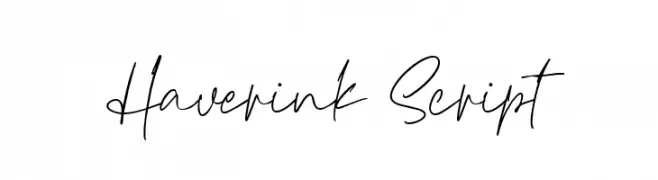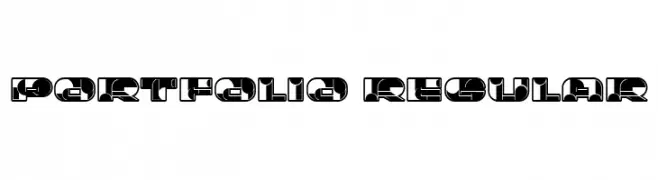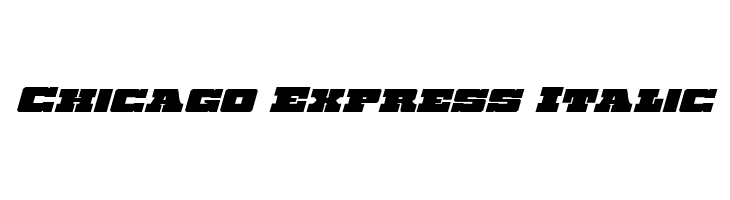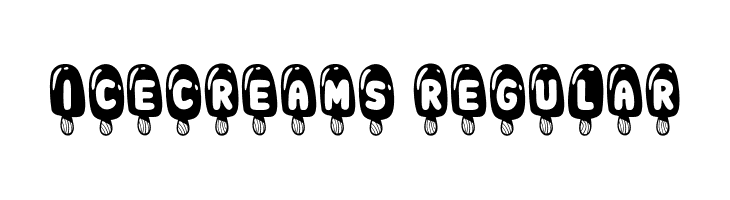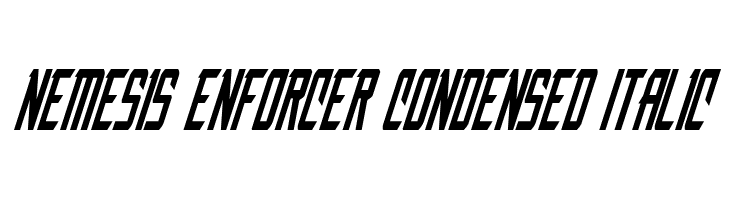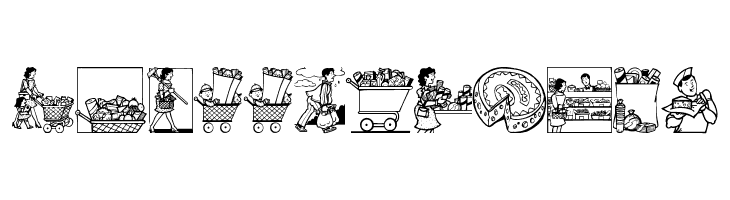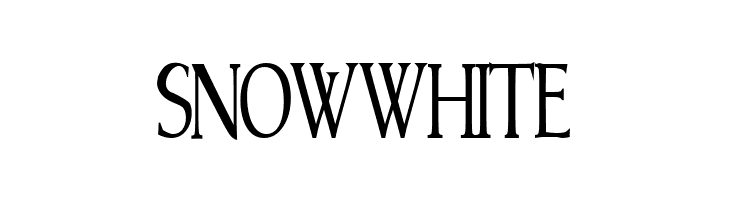
A bold, geometric font with a double-line outline, perfect for modern and futuristic designs.
A graceful and fluid script font with elegant, connected letters.
A bold, stencil-style font with sharp, angular cuts and a rugged, vintage look.
A bold, italicized grunge font with a rugged, distressed texture.
A decorative font with intricate circular patterns and loops.
A playful, hand-drawn font made of stick-figure characters.
A dynamic handwritten font with fluid, interconnected strokes and a playful style.
A bold, playful font with rounded edges and a retro-modern vibe.
A sleek, futuristic, condensed italic font with angular, streamlined characters.
A bold, geometric font with a modern, futuristic style.